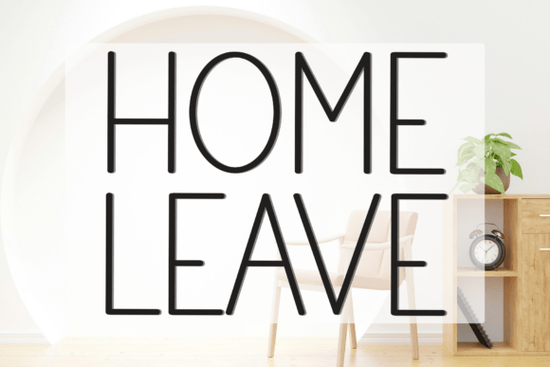
If you're looking for a clean, friendly sans-serif font that works well for home decor signs, greeting cards, or small business branding Home Leave Font is worth trying. It’s not overly decorative, but it carries warmth and quiet confidence in its letterforms. The strokes are soft-edged and slightly uneven in a natural, hand-informed way not rigid like many geometric sans-serifs, but still highly legible at small sizes and on screen. That balance makes it especially useful for crafters who cut vinyl or print labels, and for designers building cohesive product lines for print-on-demand shops.
What kind of projects does Home Leave work best for?
This font shines where personality matters but clarity can’t be sacrificed. Think: wooden wall art with short phrases like “Home Is Where the Heart Is” or “Leave Shoes Here”; minimalist baby shower invites; café chalkboard-style menus; or subtle watermarks on printable planners. Because it includes full Latin character sets including punctuation, numerals, and basic accented letters it handles real-world use without needing fallback fonts. You won’t need to swap fonts mid-sentence just to type an apostrophe or a copyright symbol.
It’s also built to scale cleanly. Whether you’re laser-cutting 2-inch letters from birch plywood or exporting 300 DPI PNGs for Etsy listings, the outlines hold up. No fuzzy edges, no unexpected gaps between letters just consistent spacing and open counters (the enclosed spaces inside letters like a, e, or o) that help readability even when resized.
How does it compare to other popular Creative Fabrica sans-serifs?
While Home Leave leans into gentle rhythm and approachability, fonts like Bacher offer tighter spacing and sharper terminals better for modern logos or tech-related branding. If you prefer something more relaxed and handwritten-leaning, Better Together gives you connected script energy, while Whipped Cream Family adds playful alternates and stylistic sets for layered text effects.
None of these replace each other they fill different roles. Home Leave sits comfortably in the middle: not too formal, not too casual. It’s the kind of font you reach for when you want your message to feel grounded and sincere, not flashy or trendy.
One practical note: because it’s a single-weight sans-serif (no bold or italic variants included), you’ll want to pair it thoughtfully if your project needs typographic hierarchy. Try using size, color, or layout to create contrast instead of relying on weight shifts. For example, a large-size “Welcome” headline in Home Leave + smaller body text in a neutral companion font like Inter or Open Sans works cleanly.
Who’s already using fonts like this?
Small businesses selling handmade goods often choose fonts like Home Leave Font for product tags, packaging inserts, and Instagram story templates. Crafters making SVG bundles for sublimation or iron-on transfers appreciate how evenly the letters cut even at 0.25 inches tall. Teachers and homeschoolers use it for printable classroom labels and behavior charts because it reads clearly without visual noise.
You’ll also find it in digital products: Canva templates for real estate agents (“Just Listed” banners), wedding planners’ editable PDFs, and even simple Notion dashboard headers anywhere you want calm, human-centered typography without sacrificing professionalism.
- ✅ You need a versatile, legible sans-serif with warmth not a rigid tech font or a busy script
- ✅ Your projects include physical crafts (vinyl, wood, fabric) or digital printables
- ✅ You’re comfortable pairing it with a second, simpler font for body text or captions
If those match your needs, Home Leave Font is likely a solid, low-friction addition to your library. Try it on one small project first like a set of matching tea towel labels or a framed quote print and see how it feels to work with. Often, the best fonts are the ones you forget you’re using because they simply do their job well.